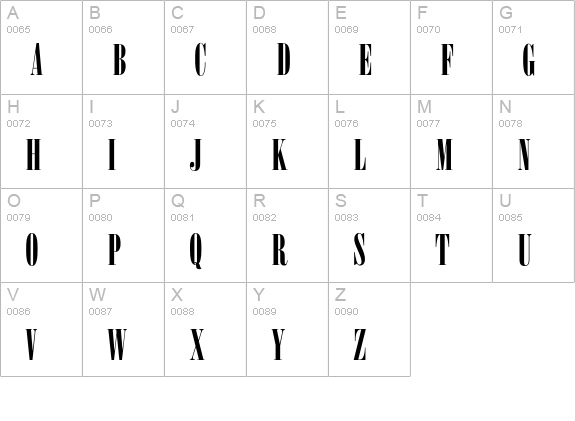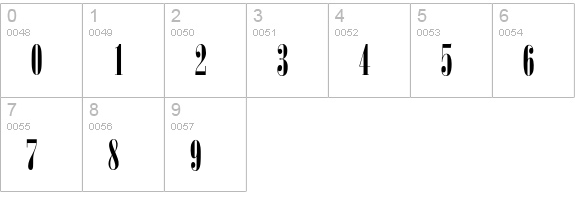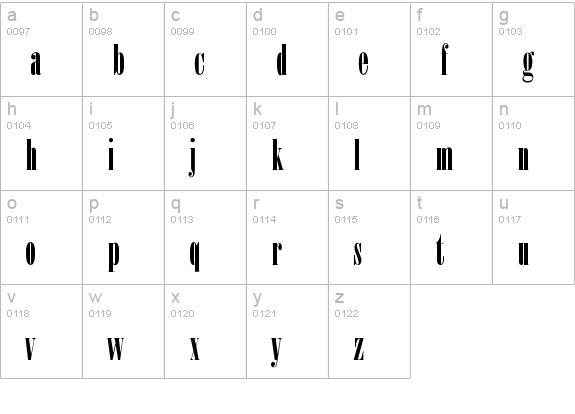
Lydiane Font Details
Introducing Lydiane font, a stunning typeface that combines elegance with a modern touch. This versatile font features clean lines and a unique style that is perfect for a wide range of design projects. Whether you are working on branding, packaging, or editorial design, Lydiane font will add a sophisticated and polished look to your work. What's even better is that Lydiane font is available for free! You can easily download this gorgeous font from FontsMarket.com and start using it in your projects right away. Don't miss out on the opportunity to add this beautiful font to your collection and elevate your designs with its timeless appeal.